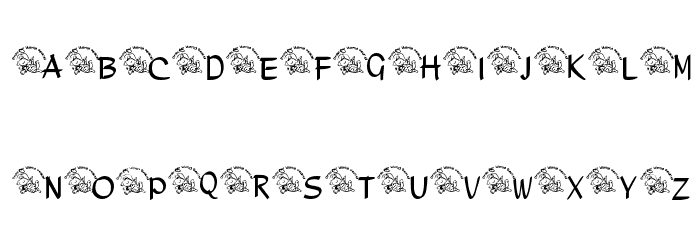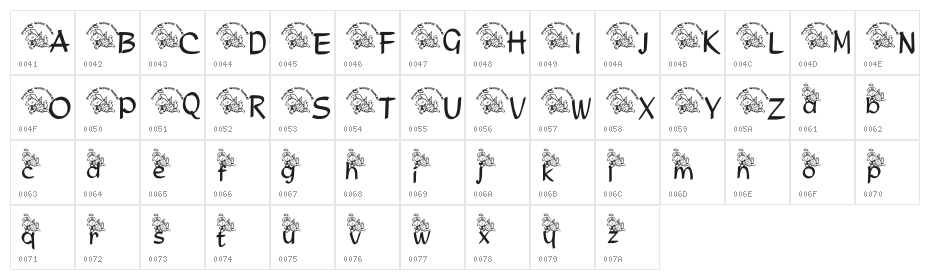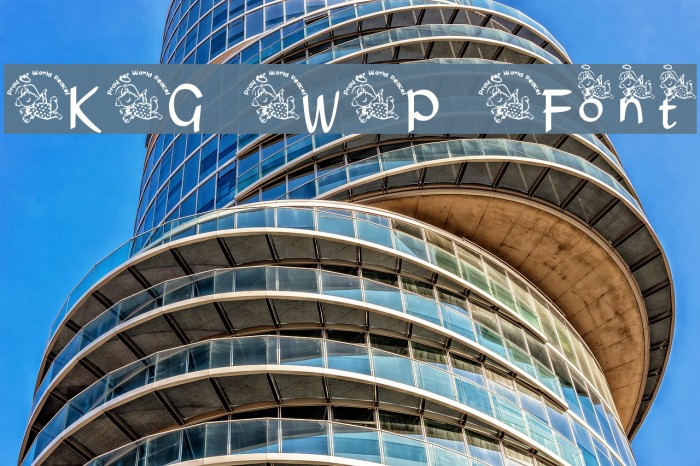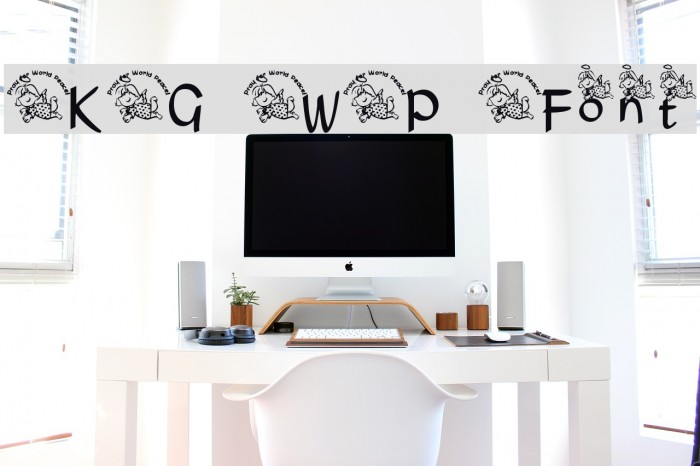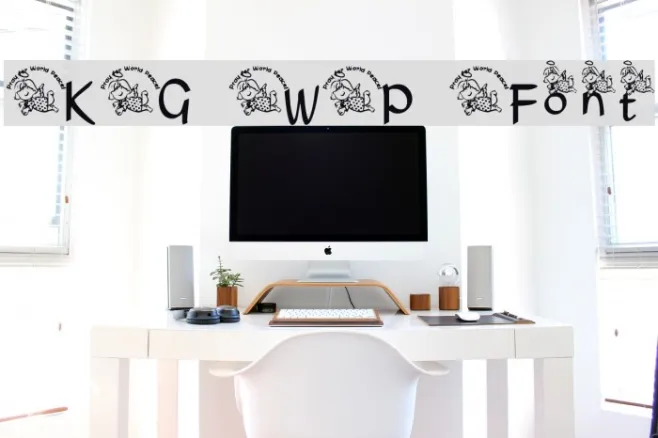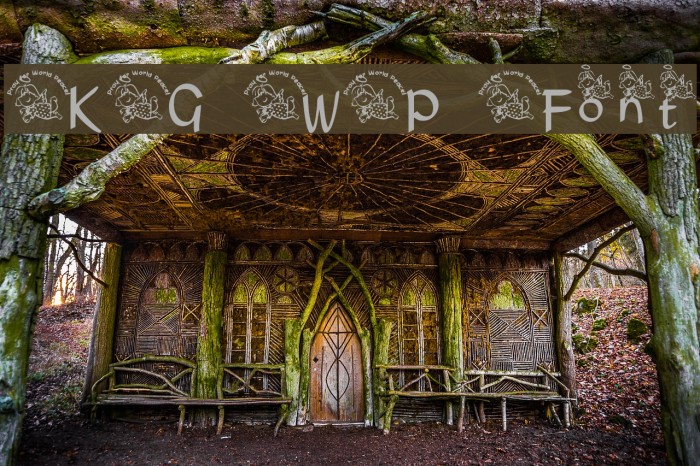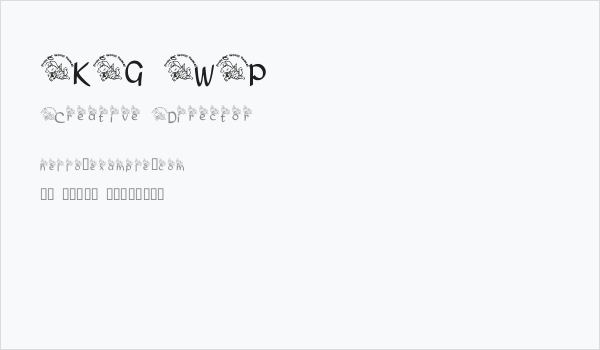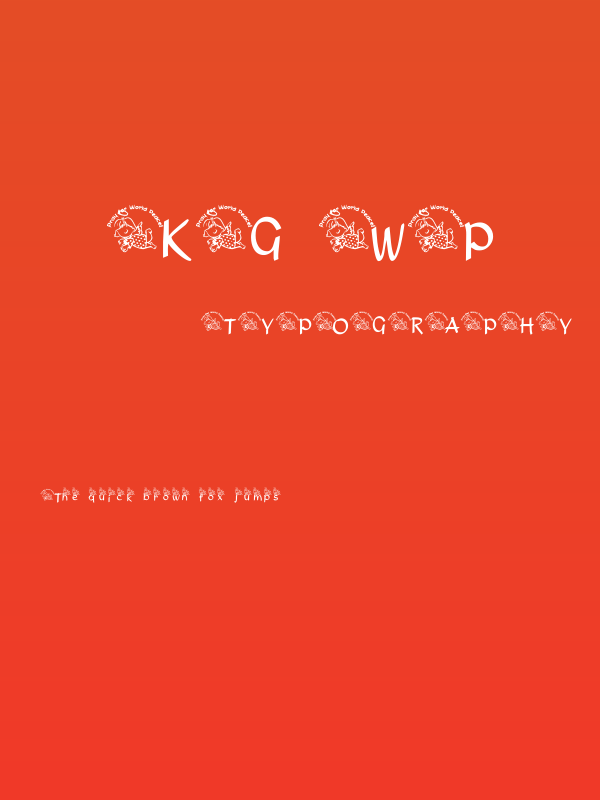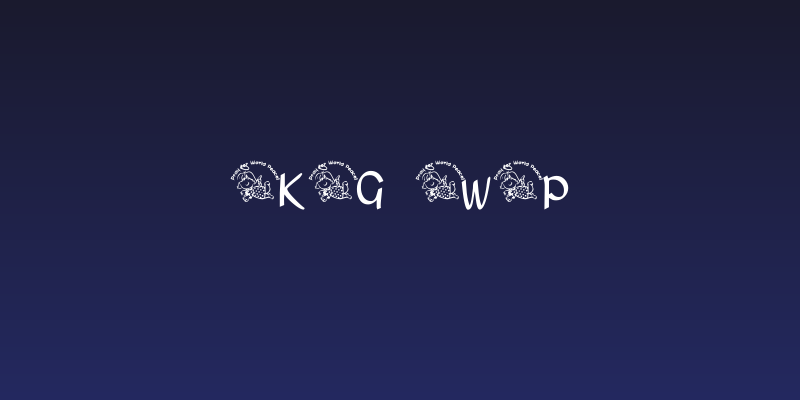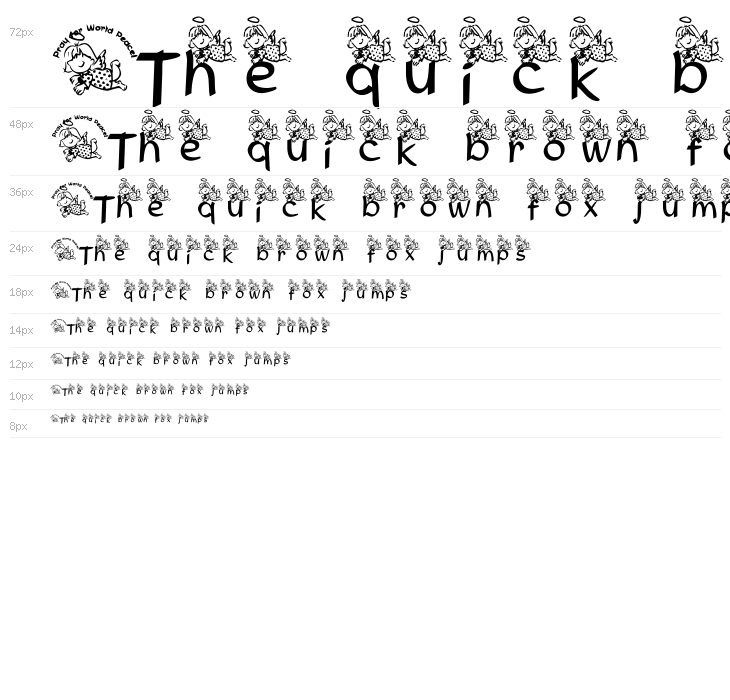
KG WP Font
KG WP Description
This decorative font features whimsical angel illustrations integrated with each character, creating a playful and unique design. The letters are bold and slightly irregular, adding to the charm and hand-drawn feel. The uppercase and lowercase letters maintain a consistent style, with the angels perched atop each character, giving a sense of continuity and thematic coherence. The numbers and special characters follow the same design pattern, ensuring a uniform appearance across all elements. This font is ideal for projects that require a touch of whimsy and creativity, such as children's books, greeting cards, or playful branding materials.
KG-WP UPPERCASE
KG-WP LOWERCASE
KG-WP OTHER CHARS
| Proposed Projects | Ideal for children's books, greeting cards, playful branding, and creative projects. |